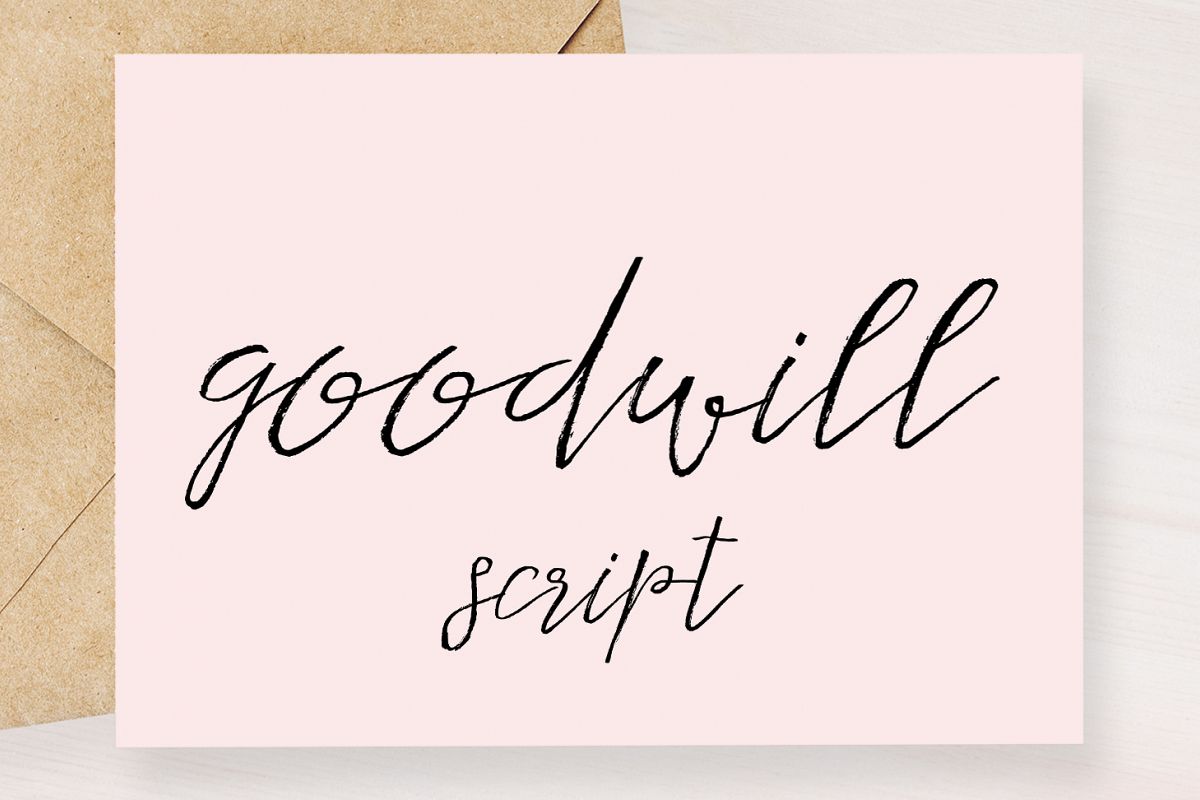
Goodwill
Goodwill is a romantic script font with a lot of texture. With its slanted letterforms and bouncy baseline, Goodwill is unapologetically expressive of its wild and romantic nature.